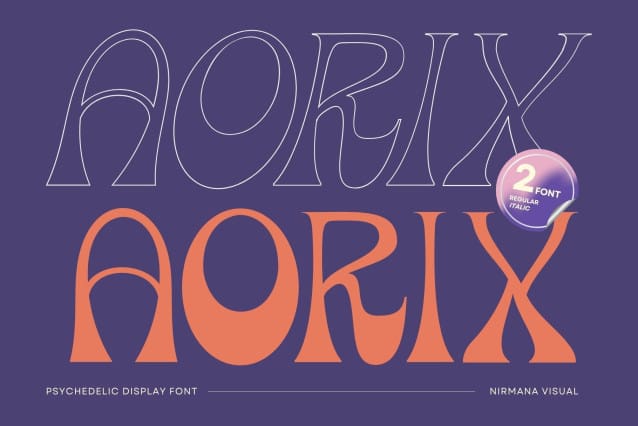
Aorix Psychedelic Font
Aorix Psychedelic Font by Nirmana Visual, offers beautiful typographic harmony for a diversity of design projects, including logos & branding, social media posts, advertisements & product designs.